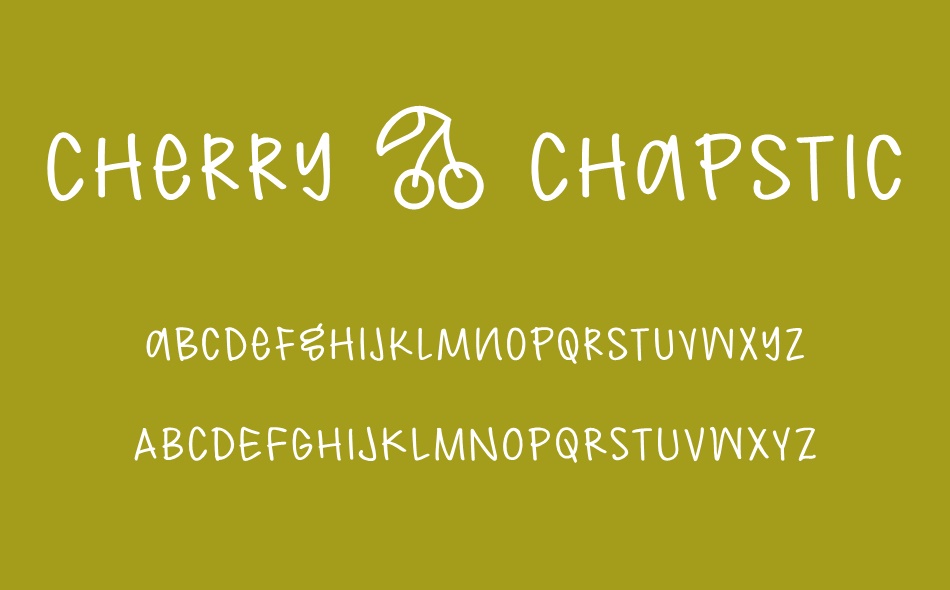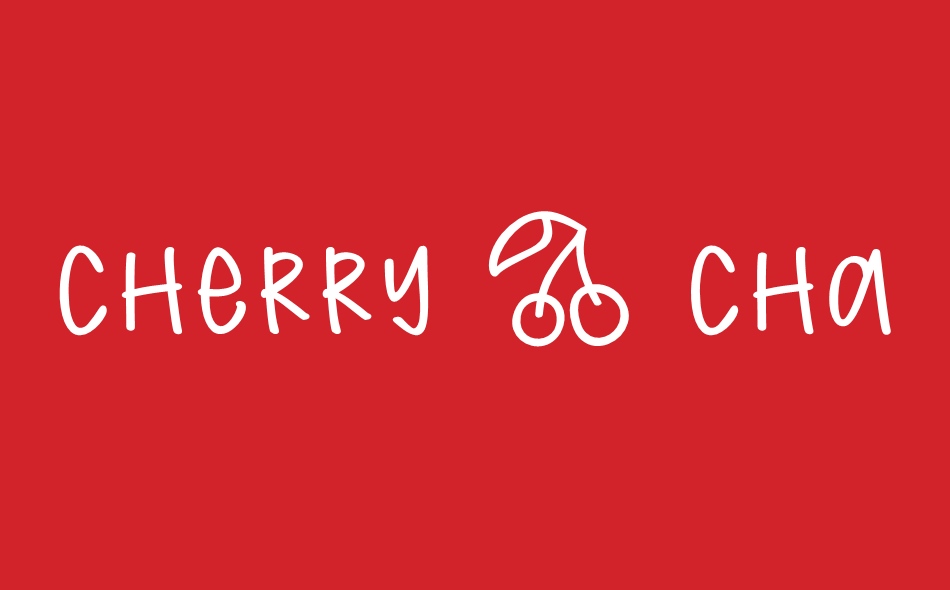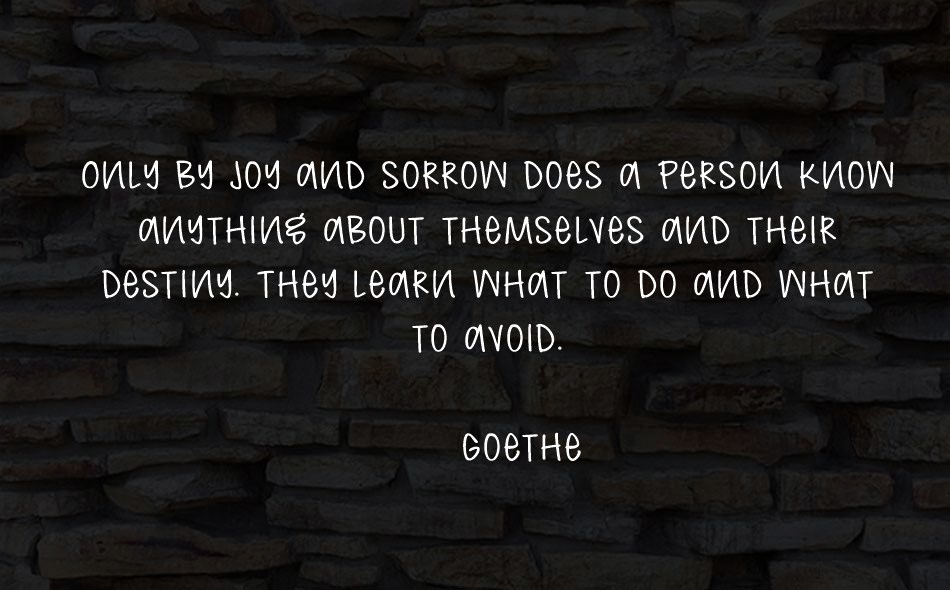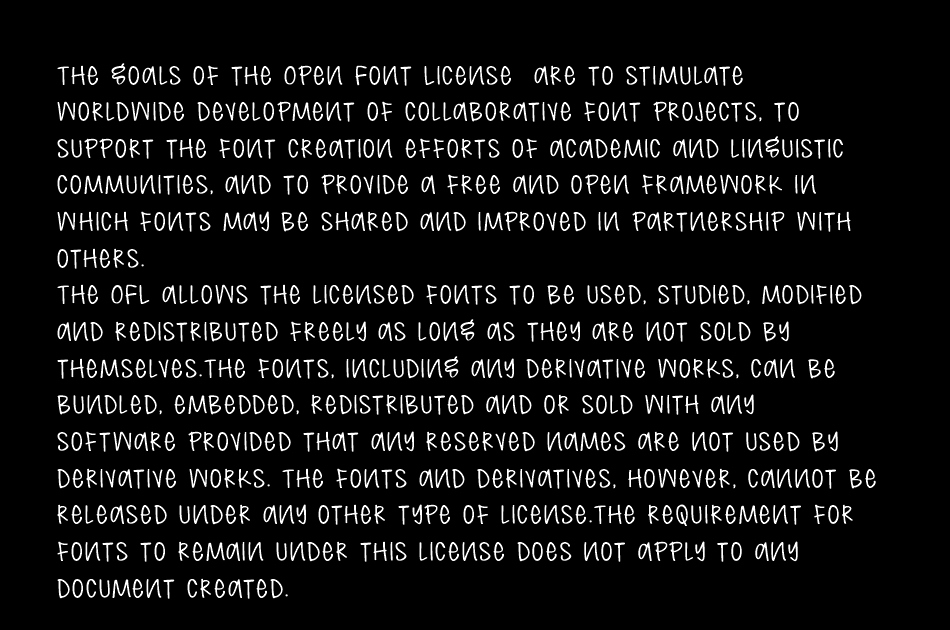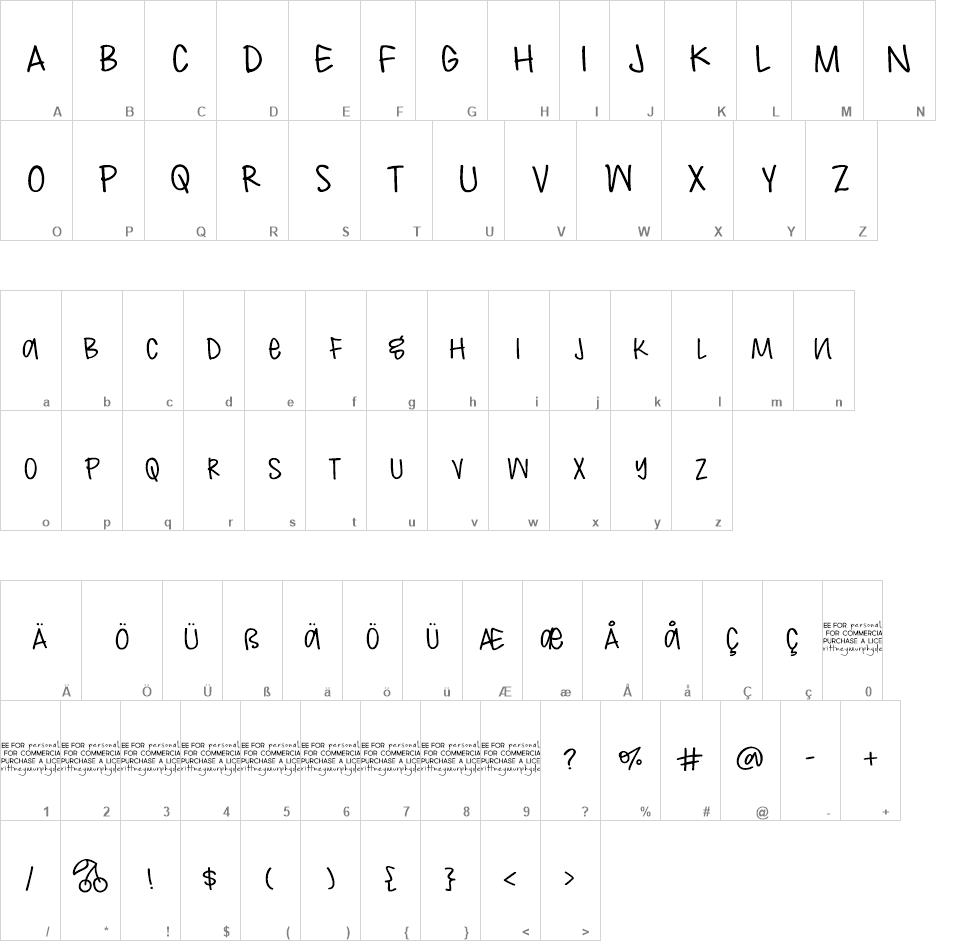
Cherry Chapstick font
The Cherry Chapstick font is a fun and flirty mixed case font. Its thin and easy to read with a bit of a sassy vibe. Use the asterisk (*) for the cherry character! :)
Font contains over 300 characters and supports most Latin-based languages.